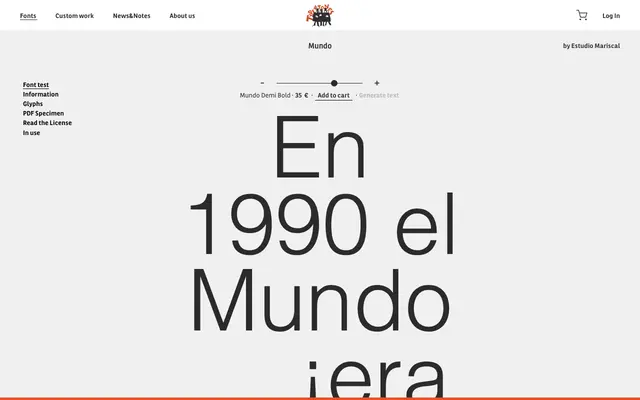
Mundo
A display typeface from 1990 by Estudio Mariscal, available in a single Demi Bold weight.
Designed by Estudio Mariscal in 1990 and published by Type-ø-tones, Mundo is a display typeface offered in a single Demi Bold weight. Mariscal's characteristic playfulness and illustrative sensibility inform the design, placing it firmly in the expressive Barcelona design tradition of the late 1980s and early 1990s. The limited weight range reflects its origins as a purpose-built display face rather than a versatile text family.
The face is credited to Estudio Mariscal and appears to be a display typeface from 1990 with a single Demi Bold weight, suggesting an expressive, illustrative character typical of Mariscal's work rather than a workhorse text design.